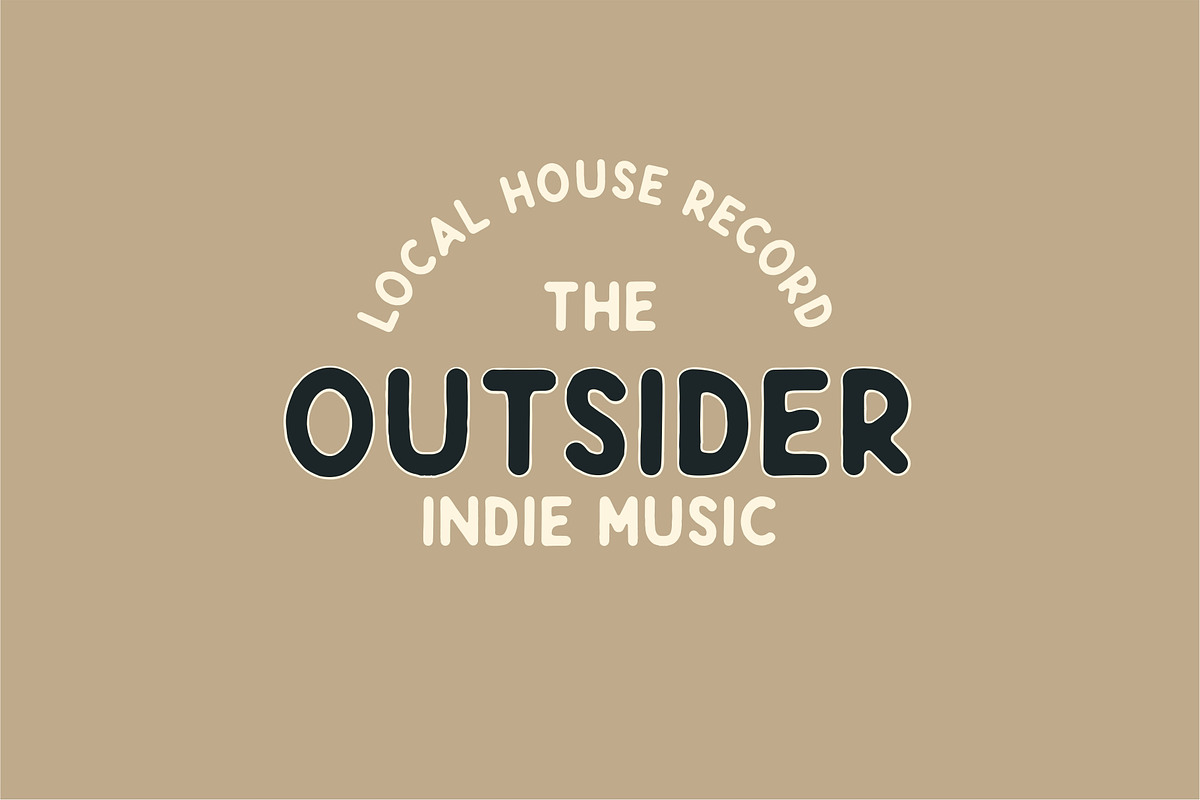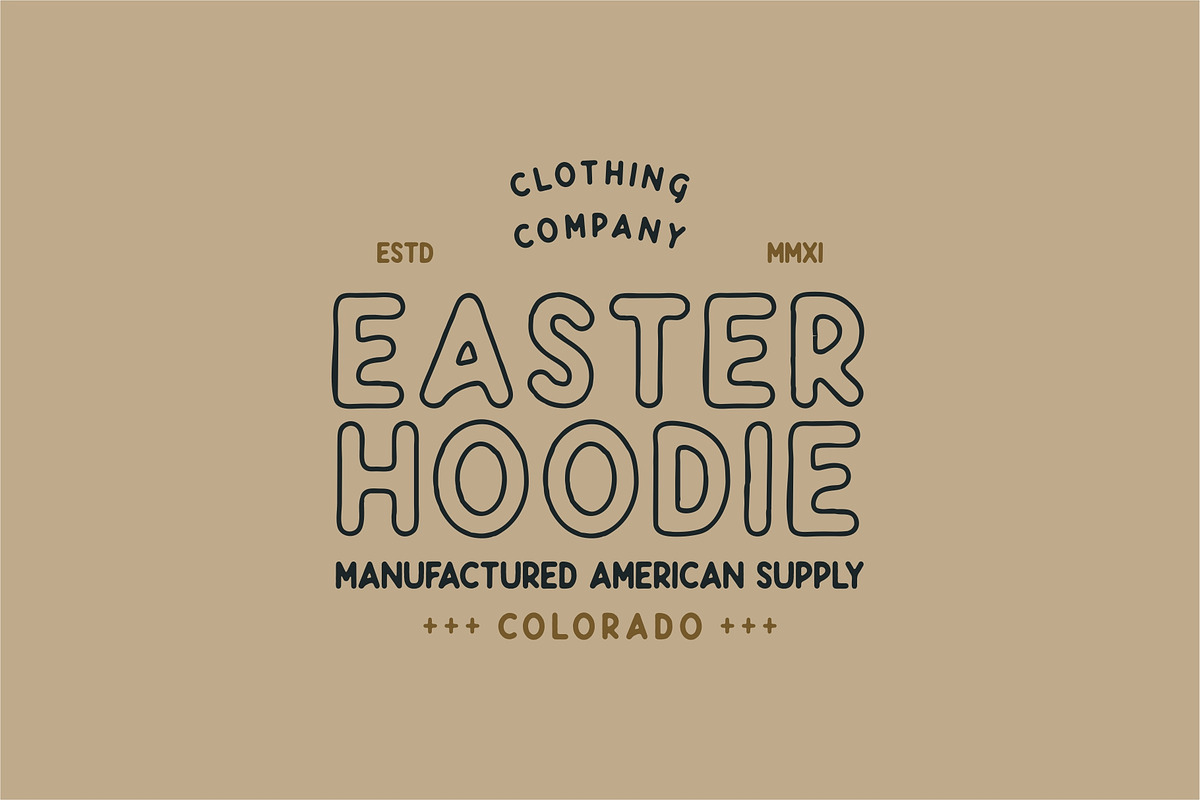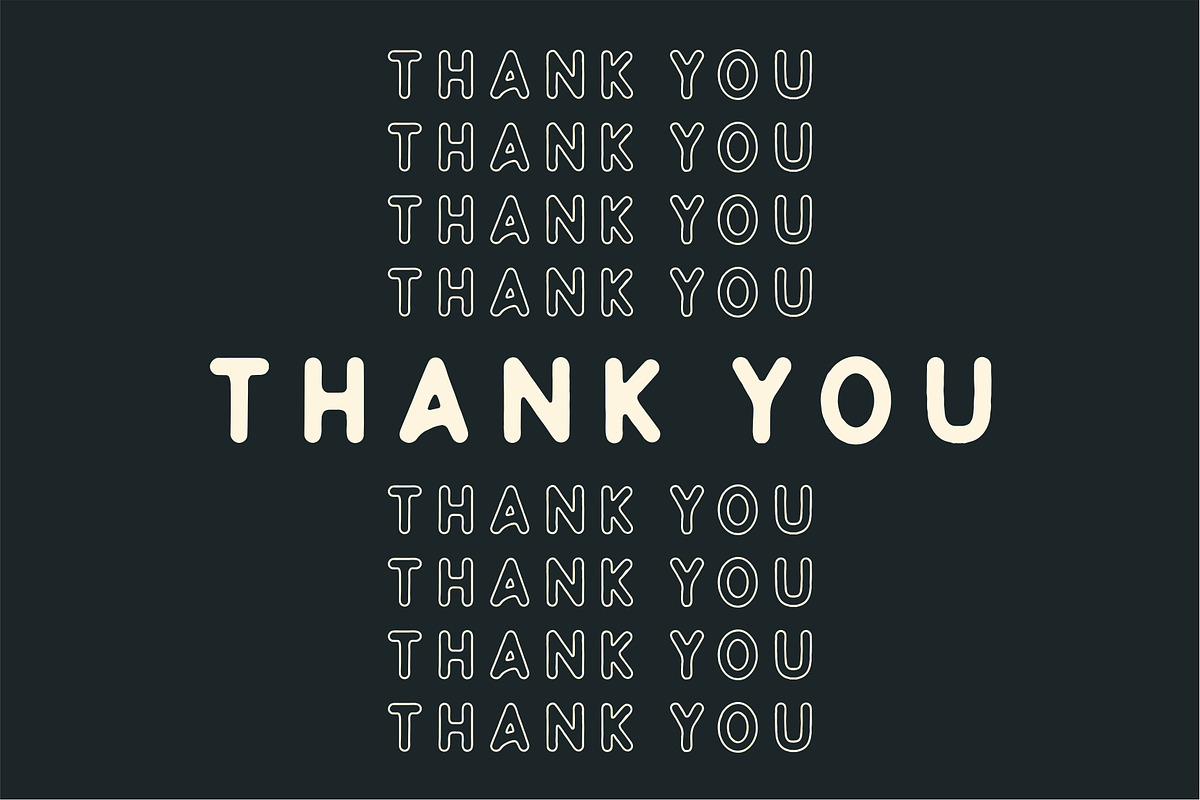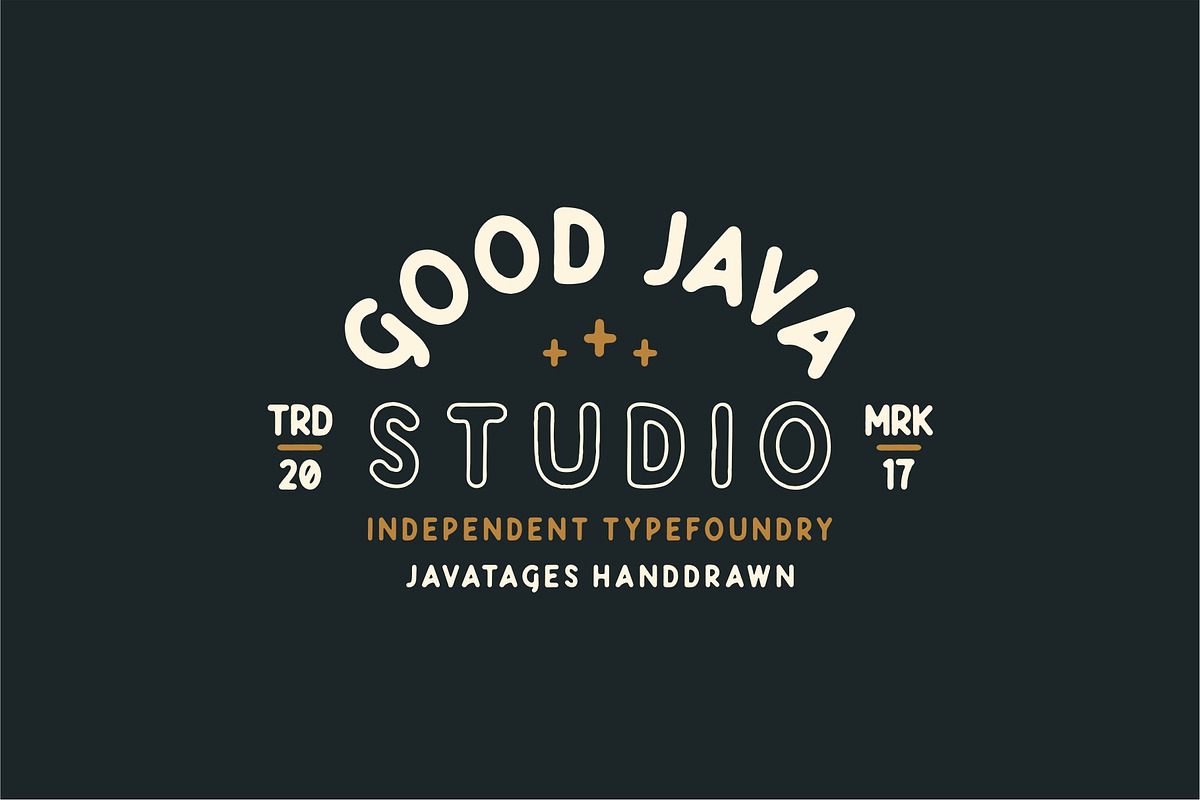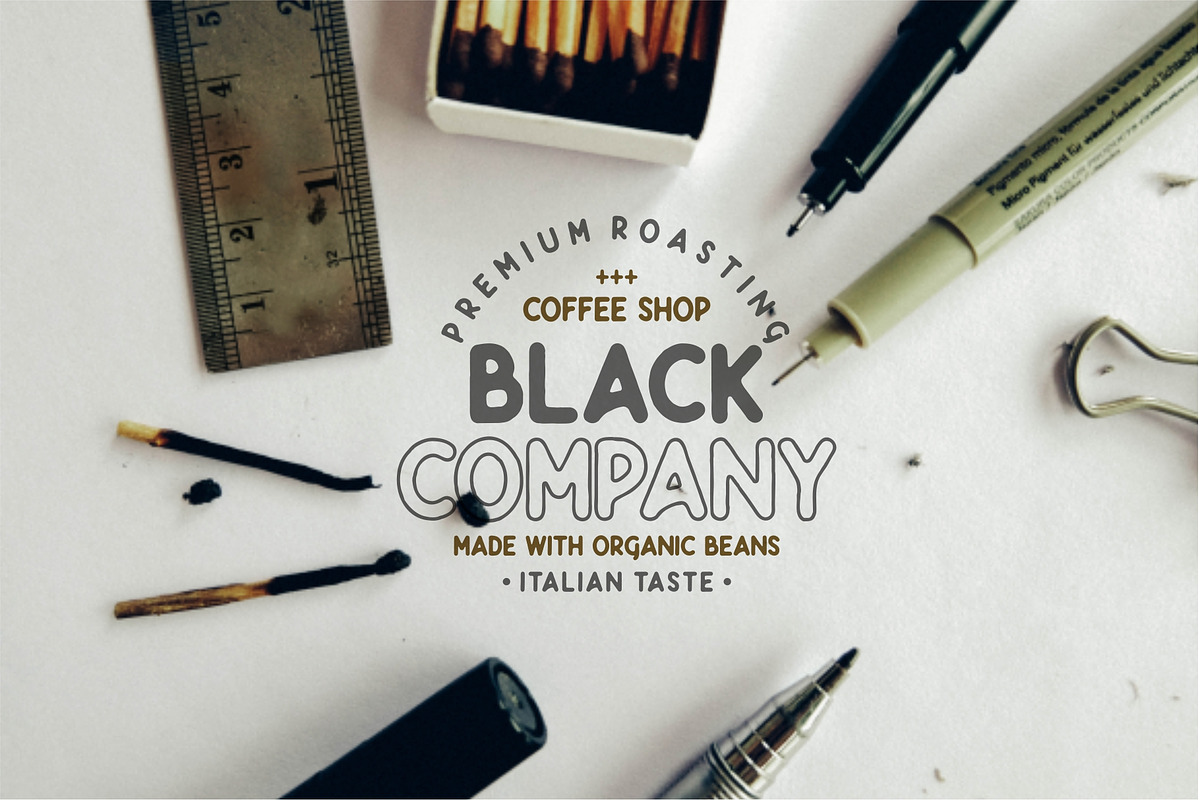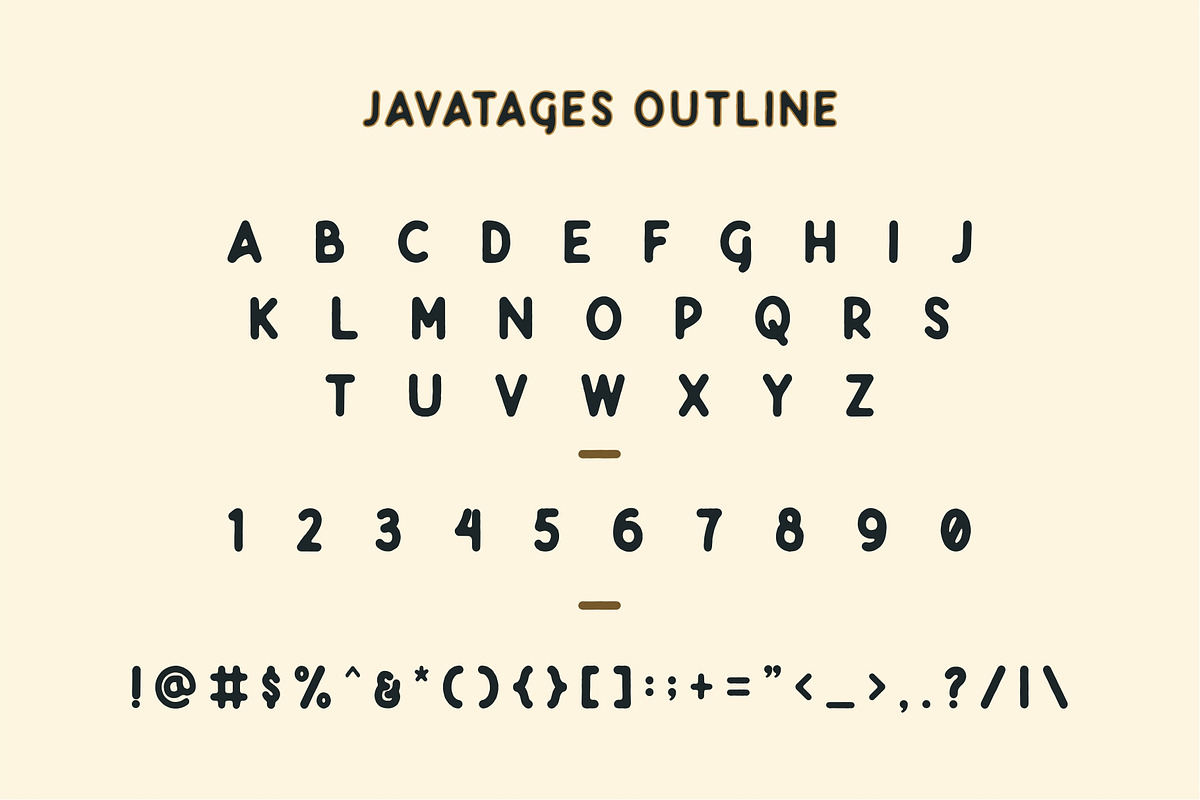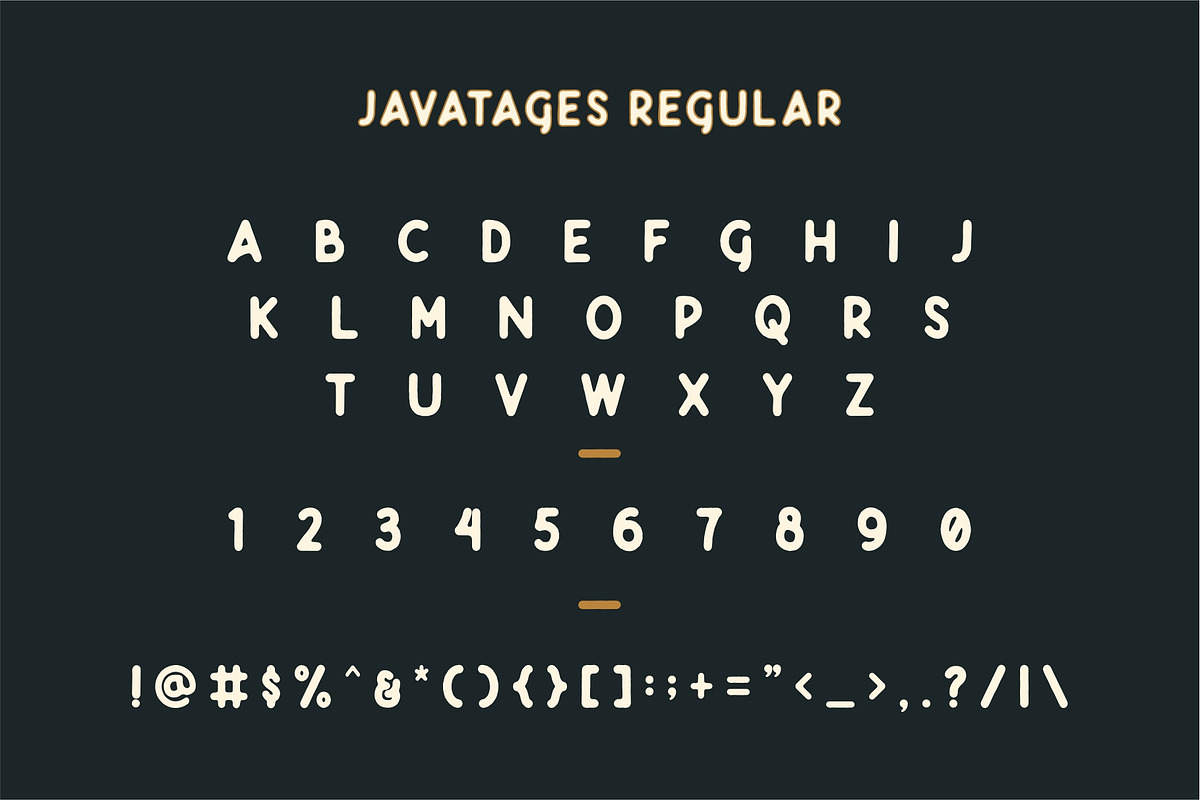
Javatages - Vintage Fonts
Javatages bold is second series from Javatages typeface. Made from vintage style inspire. He make a different style from vintage fonts, with many stylistic set with another angle. Very good for many project design like logo type, typography, branding, label, packaging, or everything your design need with vintage style.
Opentype still available on Javatages Bold, also with ligature. And support for multilingual language. This font available with two style: Regular Bold and Outline.